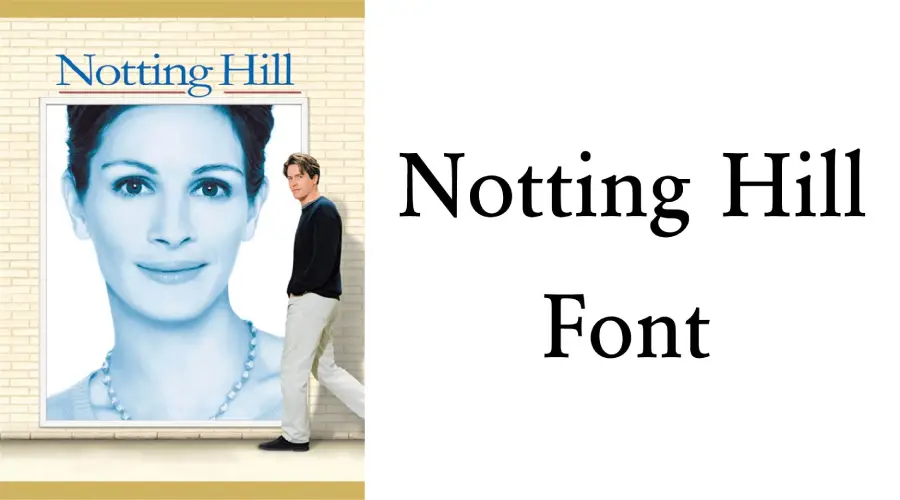
Notting Hill Font
The term “Notting Hill font” can refer to two different things: the fonts used in the promotional materials for the classic 1999 film, and a modern serif typeface that shares its name.
Fonts Associated with the “Notting Hill” Movie
The Notting Hill font, associated with the 1999 British romantic comedy “Notting Hill,” reflects the film’s elegant and classic style. It is associated with the film’s iconic poster, featuring the faces of Julia Roberts and Hugh Grant against a vibrant blue background.
Notting Hill Font
The font’s playful and romantic aesthetic perfectly complements the image, inviting viewers to immerse themselves in the heartwarming tale of unexpected love and second chances.
The font used for the movie title in the poster is very similar to the Brighton Light font, designed by Alan Bright.
Brighton Light Font Vs Movie logo Title
Brighton Light, offered by ITC and Linotype foundries, is classified as Serif and Clarendon Serif. It comes in various formats, including OTF, TTF, with 230 characters. It’s a commercial font.
OPTI Beth Medium Agency font vs Movie Logo
You can use the OPTI Beth Medium Agency font as a free alternative to Brighton Light.
For the US film poster titled “Notting Hill,” a different font is used, resembling the Garamond Extra Wide Medium font.
Garamond Extra Wide Medium font Vs Logo Title
This font is a creation of the URW Design Staff from the URW Type Foundry. It is categorized as a Serif, Old Style Serif, and Display font. This is a commercial font too.
Lusitana font is a free alternative to the Garamond Extra Wide Medium font.
The “Notting Hill” Typeface
There is also a newer serif font called “Notting Hill.”
Made by LostandFoundry, it looks smart, neat, and useful for many jobs.
It takes ideas from the lively, artsy London area of the same name, home of the big street party and busy market.
Notting Hill font 1
The font comes in two thicknesses and works with most European letters. It is not available for free.